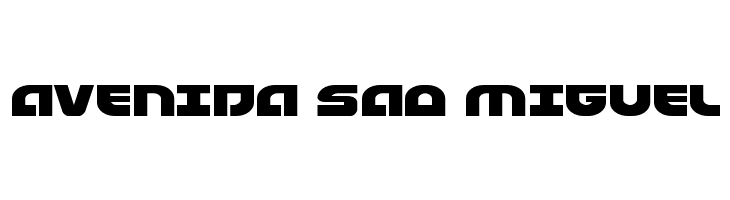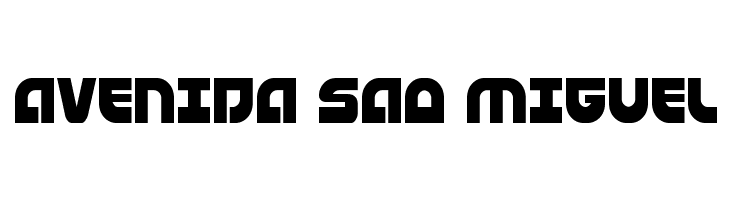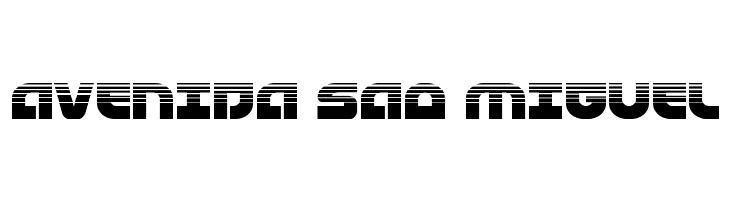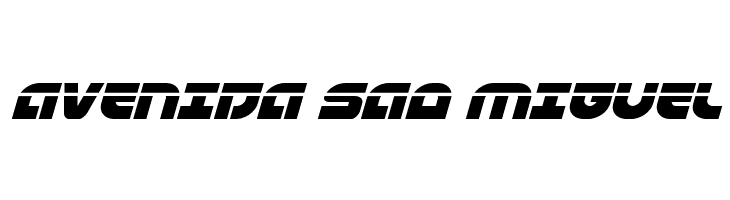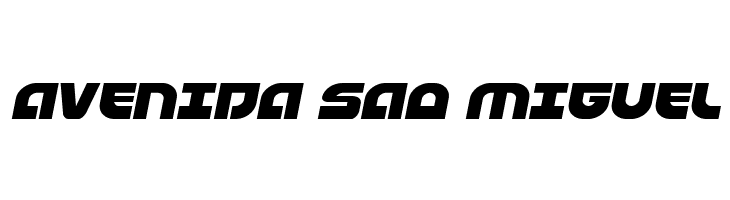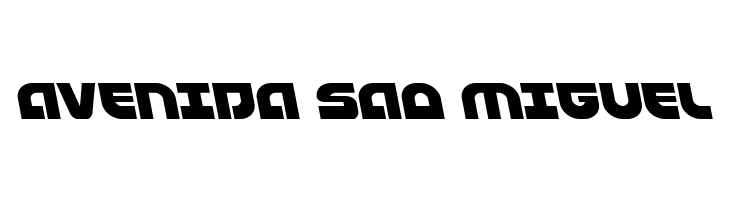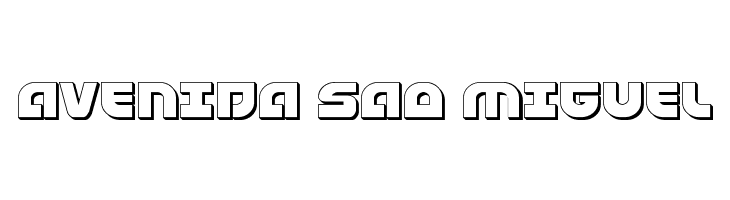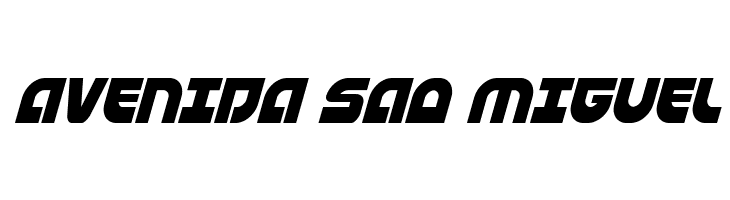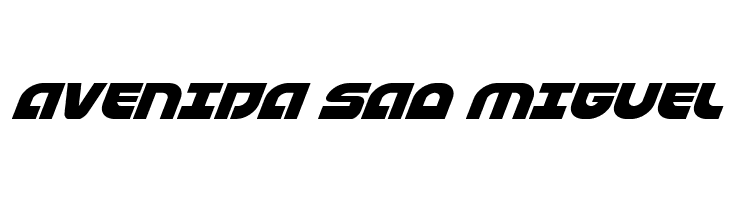
A bold, 3D futuristic font with outlined, blocky characters.
A bold, italicized 3D font with a futuristic and dynamic style.
A bold, futuristic font with geometric, block-like characters.
A bold, italicized font with a futuristic and geometric design.
A bold, futuristic, and condensed font with a geometric style.
A bold, condensed, and italic font with a futuristic and dynamic style.
A bold, futuristic font with angular, geometric characters and an expanded width.
A bold, expanded, and italic font with a futuristic, tech-inspired design.
A futuristic, bold font with a horizontal line gradient effect.
A futuristic italic font with a gradient line effect, conveying speed and modernity.
A bold, futuristic font with a unique halftone effect and geometric design.
A bold, italicized font with a futuristic halftone effect and geometric structure.
A bold, italic, futuristic font with angular shapes and a dynamic slant.
A bold, futuristic font with geometric and angular design.
A bold, italicized font with a futuristic and geometric design.
A bold, futuristic font with angular, geometric shapes and a dynamic slant.
A bold, futuristic font with a semi-italic slant and angular design.
A bold, futuristic font with a semi-italic slant and geometric structure.
A bold, italicized font with a futuristic and angular design.